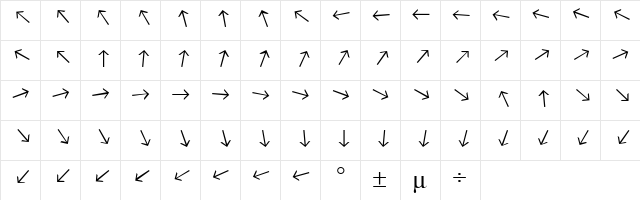
ArrowFont Regular
| Copyright | ArrowFonts, for paleoflow, in 5 degree increments, designed by Robert Remy, September, 1988. |
Design Context for ArrowFont Typeface
ArrowFont is a composed and adaptable typeface that performs quietly and consistently across a wide range of design contexts.